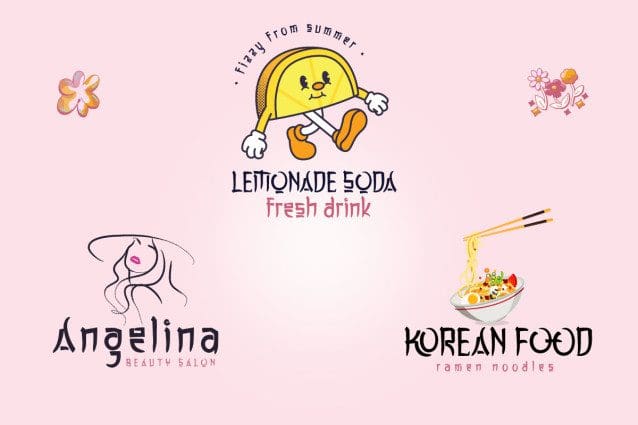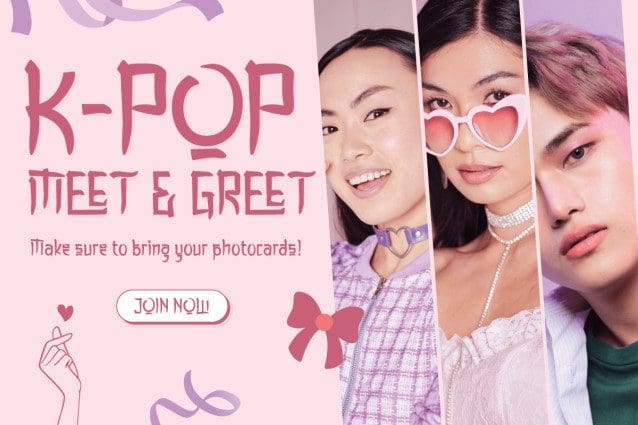
Waom Korean Font
Waom Korean Font, a stunning Korean font with a distinctly Asian touch. With each letter expressing tenderness and beauty, Waom takes you on an enchanting journey through Korea’s rich culture.
Waom Korean Font is the perfect choice for branding projects, logo typography, and special events that want to embrace the beauty of Asia. The classic yet modern design gives a unique and charming touch to each piece.
Let Waom take you on a journey through the wonders of Korean culture. With this font, bring stunning beauty to your designs, making every project a representation of timeless beauty.